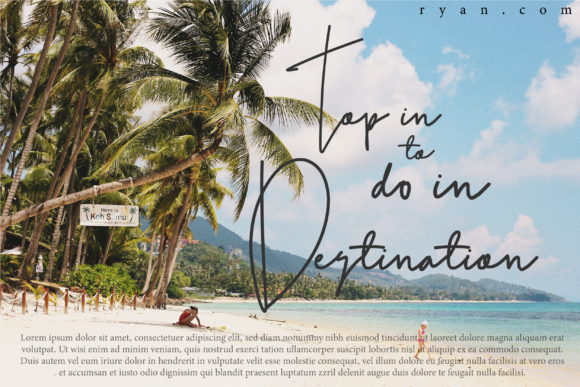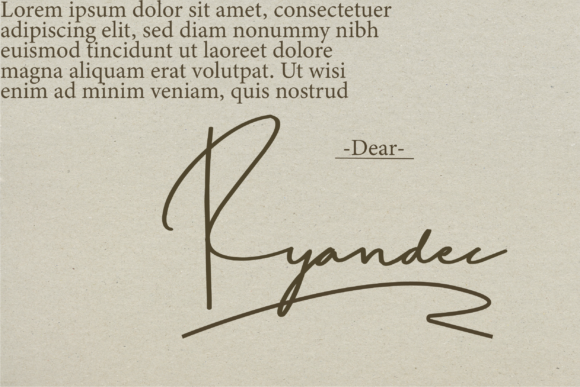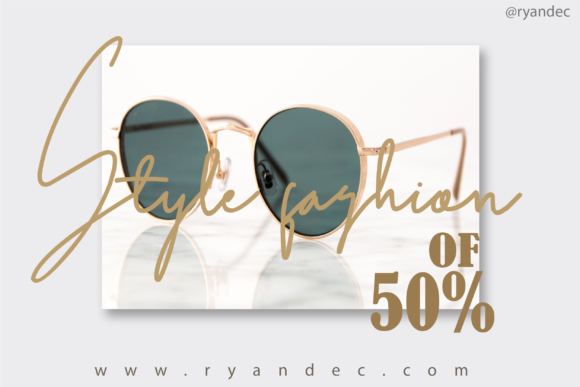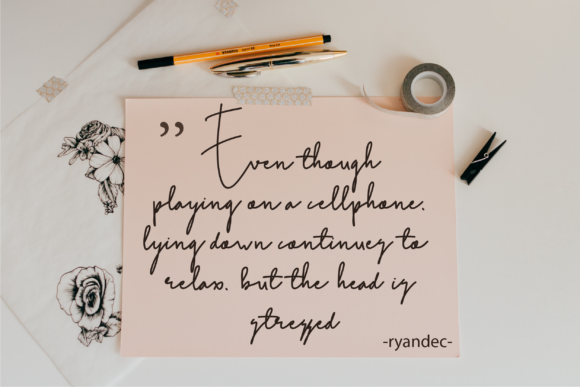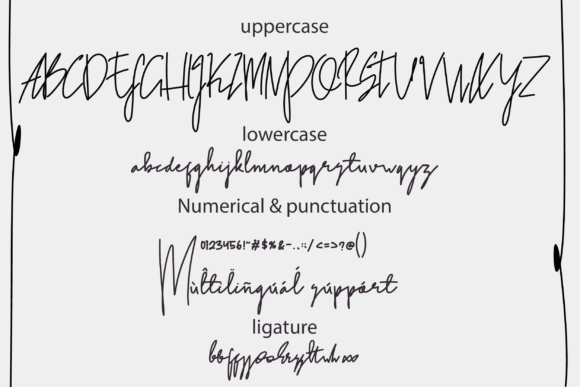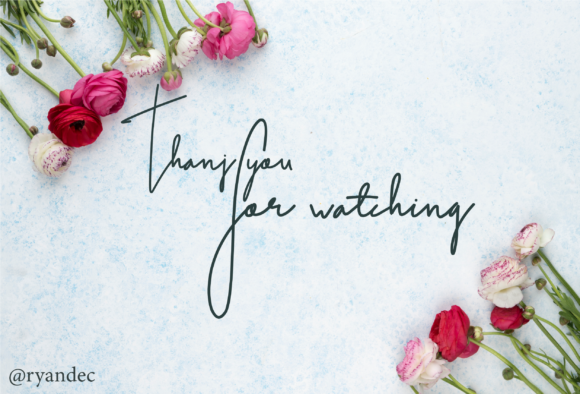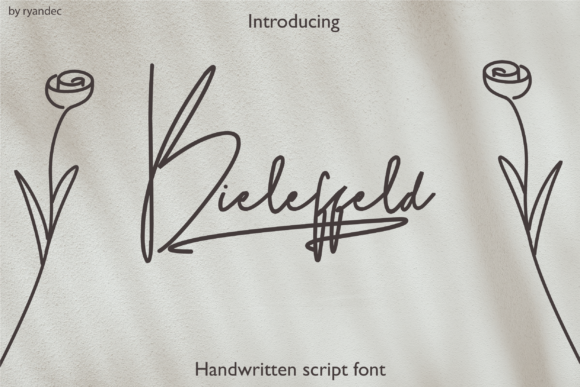
Bieleffed Script Font: Elevate Your Designs with Elegance and Sophistication
In the world of typography, script fonts hold a special place for their elegance, sophistication, and ability to add a personal touch to any design. Among these, the Bieleffed Script Font stands out for its unique blend of slim and delicate characteristics, making it an ideal choice for designers and crafters looking to infuse their projects with a sense of refinement and grace. In this article, we’ll explore the Bieleffed Script Font in detail, discussing its features, applications, and the creative possibilities it offers.
What is Bieleffed Script Font?
Bieleffed Script is a beautifully crafted script font known for its slim and delicate appearance. Its design is inspired by traditional calligraphy, offering a fluid and graceful look that can elevate any design project. Whether you’re working on wedding invitations, thank you cards, quotes, greeting cards, logos, or business cards, Bieleffed Script provides a handwritten touch that can make your designs stand out.
Key Features of Bieleffed Script Font
• Slim and Delicate: The font’s slim and delicate strokes make it perfect for designs that require a subtle yet elegant look.
• Handwritten Touch: It adds a personal and human touch to any design, making it more engaging and appealing.
• Versatile: Suitable for a wide range of design projects, from formal to casual, including wedding stationery, branding, and more.
• Elegant and Sophisticated: Ideal for designs that need to convey elegance, sophistication, and refinement.
Applications of Bieleffed Script Font
The versatility of Bieleffed Script Font makes it suitable for various design applications. Here are some of the most popular uses:
• Wedding Invitations: Add a touch of romance and elegance to your wedding stationery.
• Thank You Cards: Express gratitude with beautifully designed thank you cards.
• Quotes and Typography: Use Bieleffed Script to create stunning quote designs for social media, blogs, or print.
• Greeting Cards: Whether it’s a birthday, anniversary, or holiday, Bieleffed Script can add a personal touch to your greeting cards.
• Logos and Branding: For businesses that want to convey elegance and sophistication, Bieleffed Script can be a great choice for logos and brand identity.
• Business Cards: Stand out with beautifully designed business cards that reflect your professional yet elegant brand image.
Tips for Using Bieleffed Script Font
To make the most of Bieleffed Script Font, consider the following tips:
• Pair with Complementary Fonts: Combine Bieleffed Script with sans-serif or serif fonts to create a balanced and visually appealing design.
• Adjust Letter Spacing: Experiment with letter spacing to achieve the desired look, especially for longer texts.
• Use Appropriate Colors: Stick to elegant color palettes such as pastels, neutrals, or metallics to complement the font’s sophisticated feel.
• Consider Size and Weight: Ensure the font size and weight are appropriate for your design, keeping in mind readability and visual impact.
Bieleffed Script Font is a versatile and elegant typeface that can add a touch of sophistication and personal warmth to a wide range of design projects. Its slim and delicate appearance makes it particularly suited for wedding stationery, branding, and any design that calls for a refined and handwritten look. By understanding its features, applications, and best practices for use, designers and crafters can unlock the full creative potential of Bieleffed Script Font and elevate their designs to new heights of elegance and beauty.
Whether you’re a professional designer or a DIY crafter, Bieleffed Script Font offers a world of creative possibilities. So, dive in, experiment with its features, and discover how this beautiful script font can transform your designs into stunning works of art.